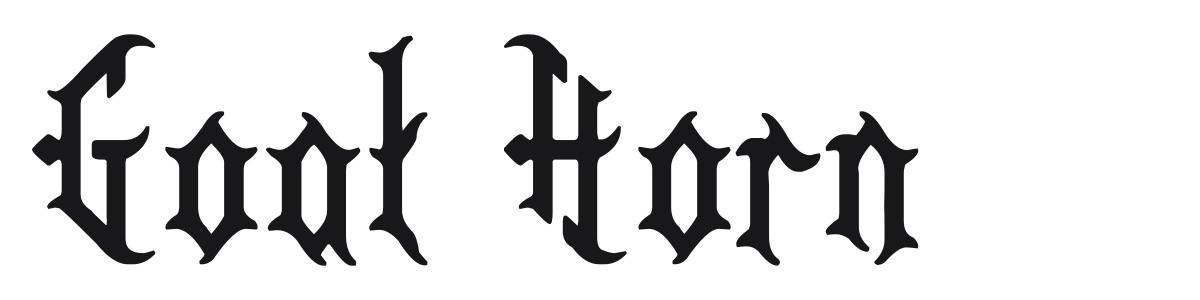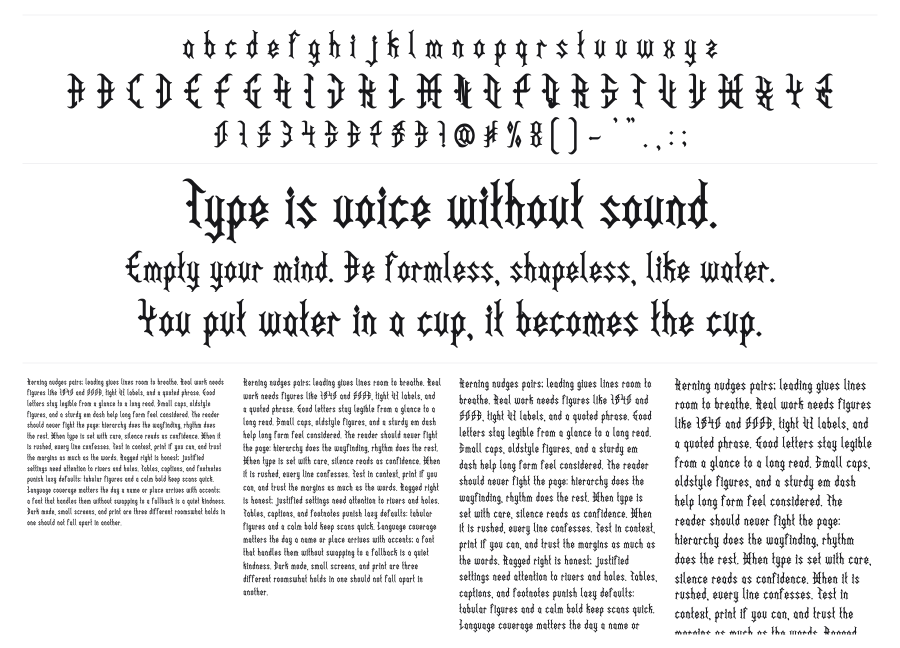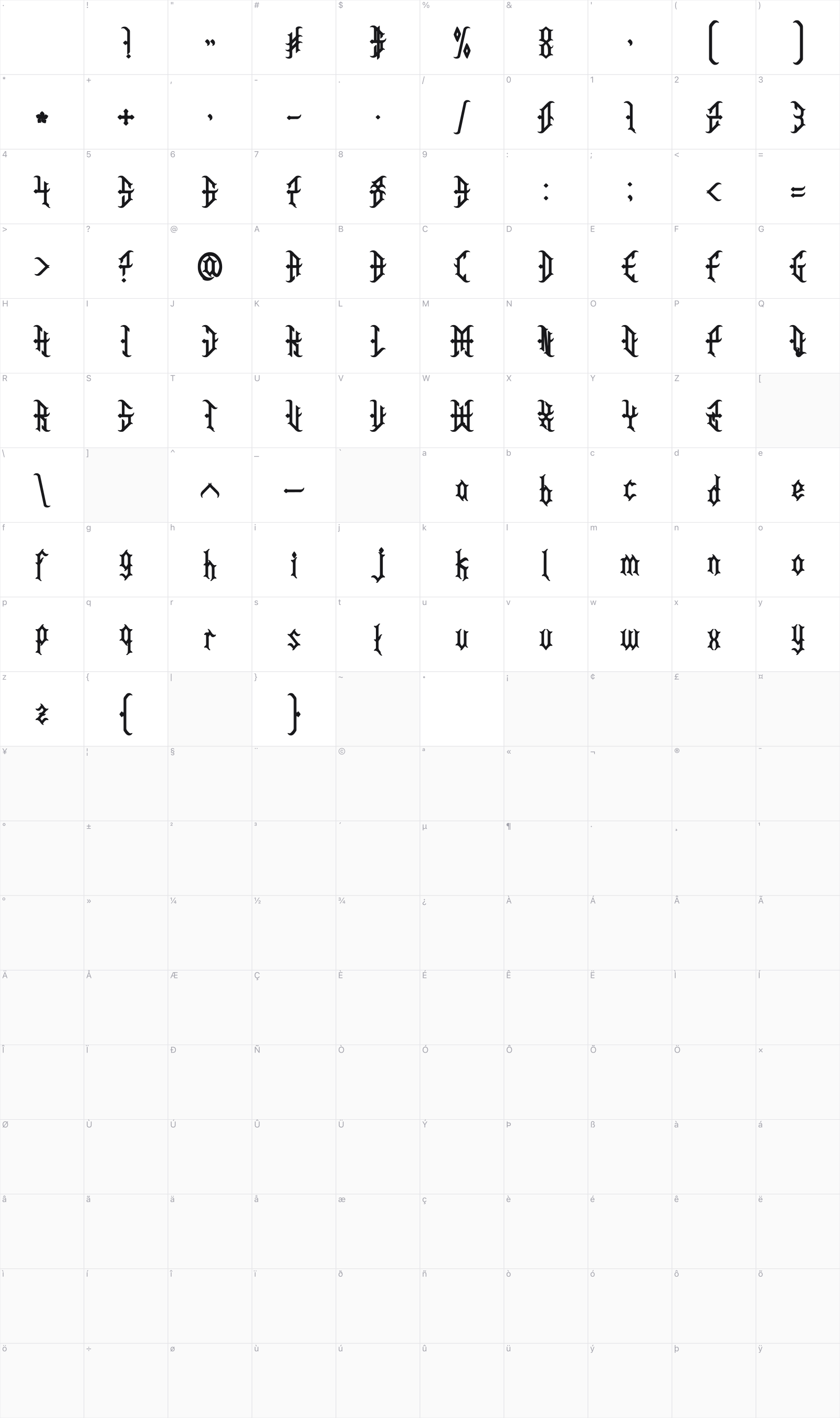
Goat Horn
Goat Horn is a heavy gothic blackletter with razor-sharp pointed terminals and extreme stroke contrast that reads like it was carved from stone. The angular construction and dense, compressed proportions give it an aggressive presence that fits naturally in heavy metal, horror, and underground aesthetics. Works best large, where the fine hairlines and spiked details can do their work.